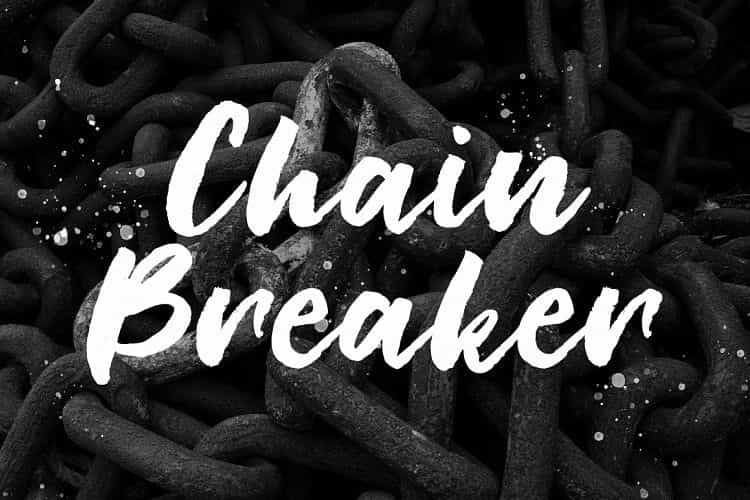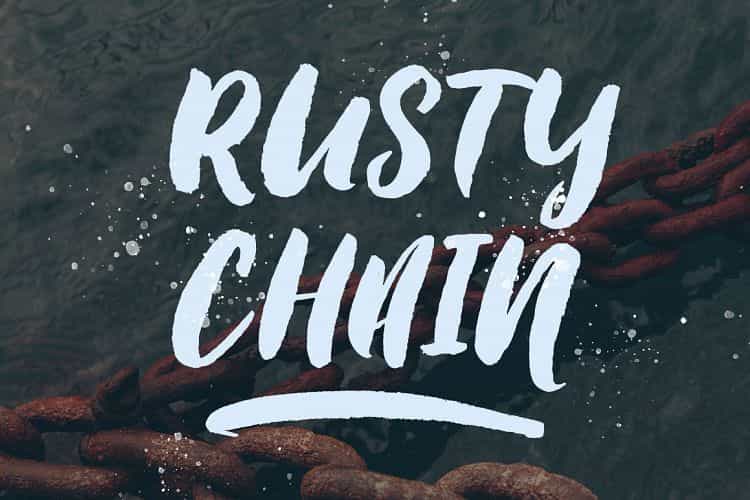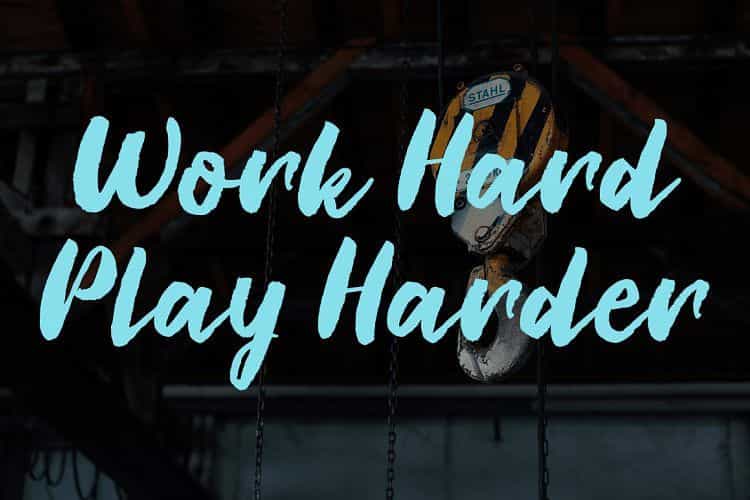
Introducing Chain Breaker! This is handwritten made with a brush pen, like real watercolor letters. Combine the font with watercolor stains, textures, backgrounds to achieve the most natural effect. it is designed and shared by Uloel Design. Chain Breaker Script Font is a font that is purposely made with a rough brush, so this font has a perfect initial character and looks unique and attractive.